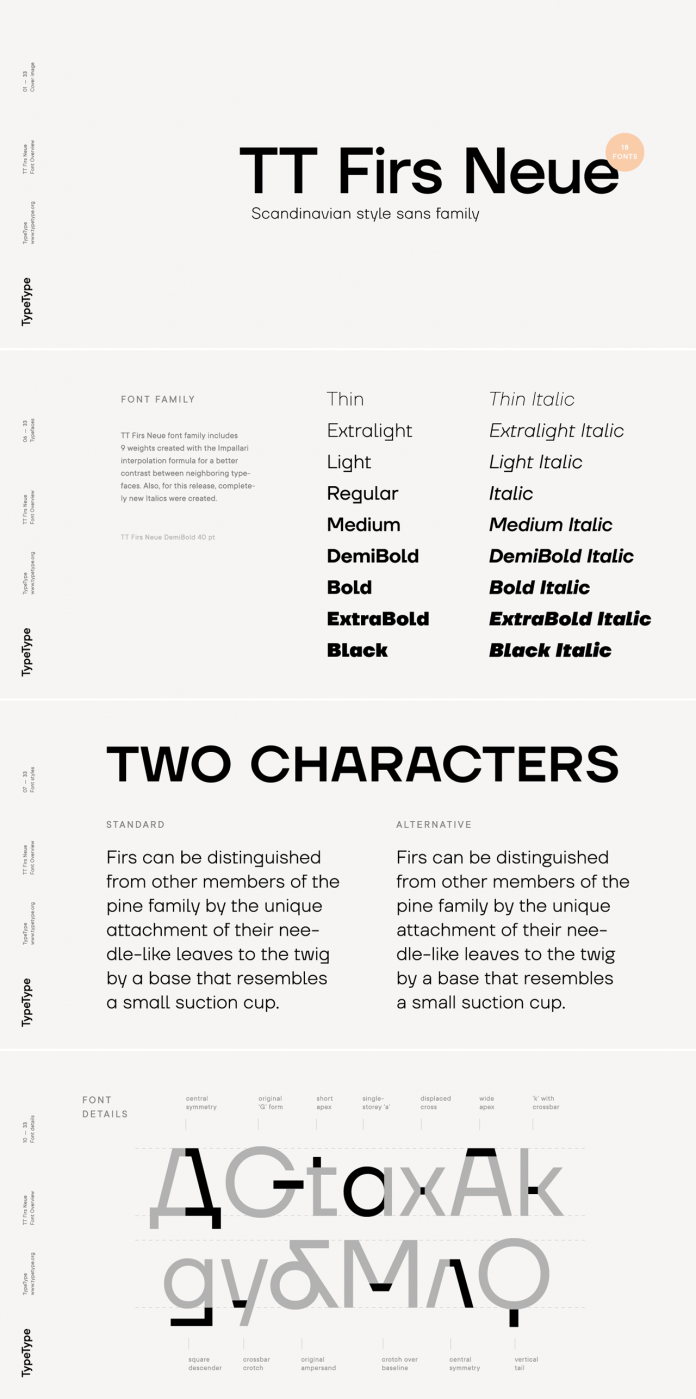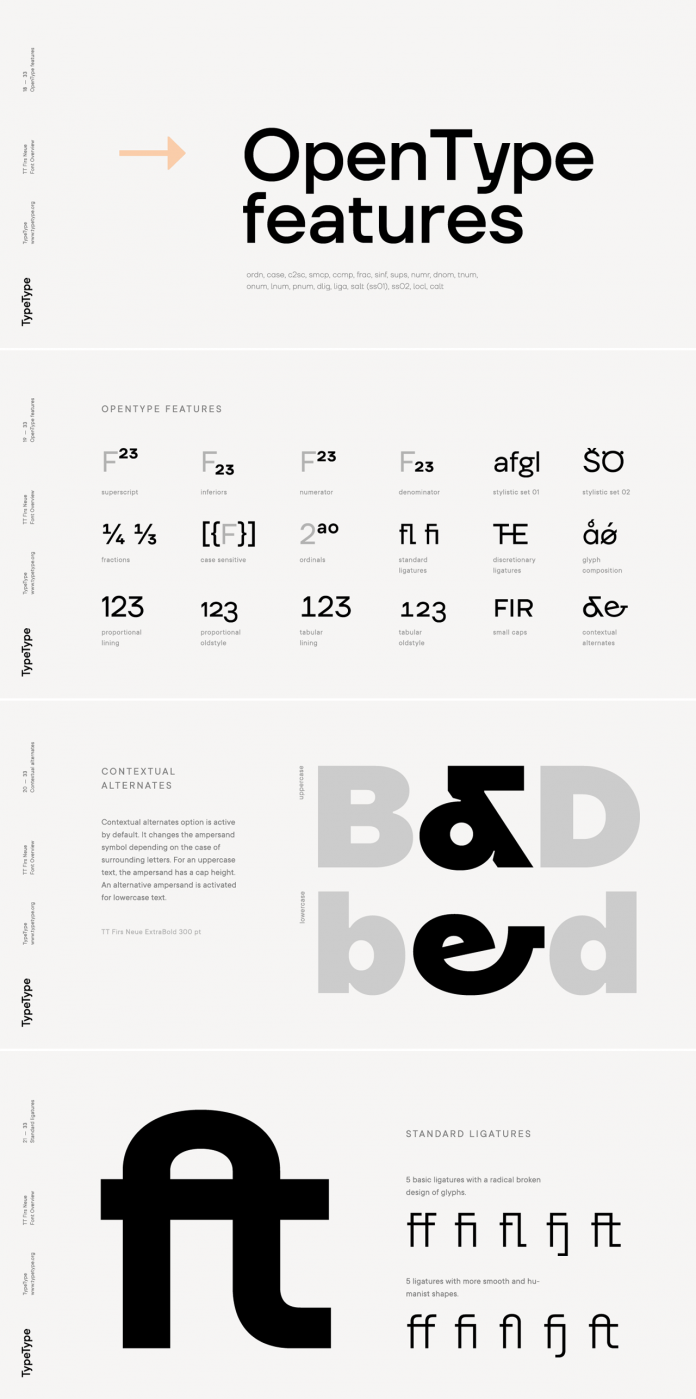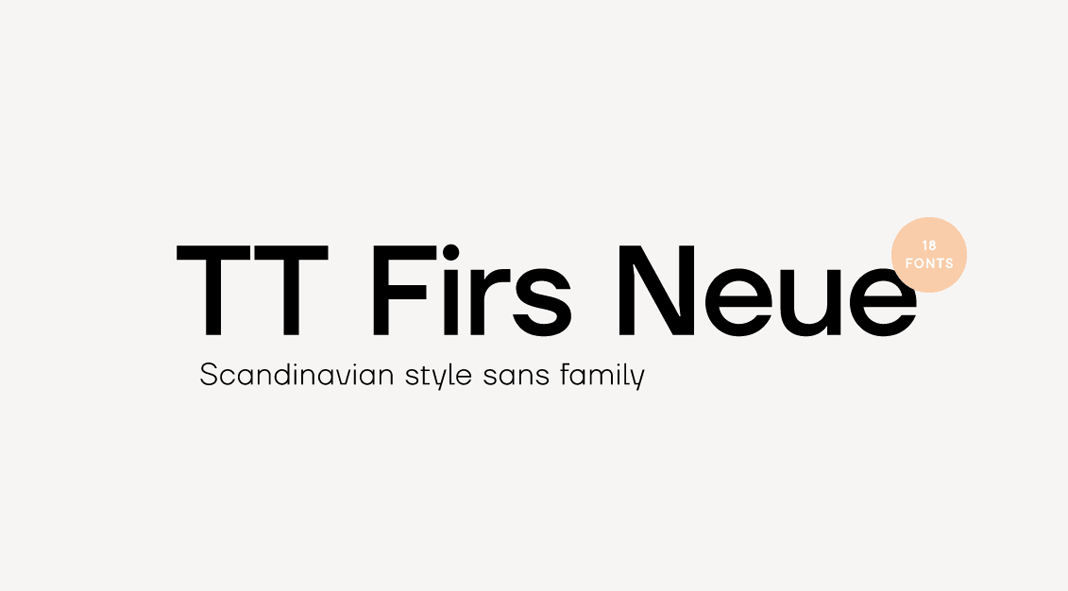
TT Firs Neue, a contemporary reincarnation of the good old Scandinavian TT Firs sans-serif typeface.
Designed by Ivan Gladkikh, Philipp Nurullin, and the TypeType team, TT Firs Neue is a modern rework of the original TT Firs sans-serif typeface. While updating the old typeface, the designers realized that the wide range of innovations and the great number of additional features deserve a full-fledged new release, and thus they came up with TT Firs Neue. Please read more below or click on one of the following links to purchase this amazing family.
The revised family comes with an additional variable version that allows you to select and set up any custom weight of letters ranging from Thin to Black. What else has changed you might ask and we can say, it’s actually a lot! The design team has fully updated the proportions of letters. Furthermore, TT Firs Neue is based on a completely new formula for the interpolation of weights. Even the basic thicknesses of the strokes have been adjusted that all of the 18 fonts are now following a more uniform system. They also created a new set of Italics and made several changes directly to the style of the typeface and its letters, which results in a fresher yet cleaner look. Read more below.
While the old family was primarily made for display use, the new version is suited to a broader scope of use including any form of body text and on the web. TT Firs Neue has received a complex set of OpenType features including small caps (for Latin and Cyrillic alphabets), a set of stylistic alternates, a large number of original ligatures (in addition to the standard ligatures), etc. These are just a few of the new adjustments. To learn more, just click on one of the links below.